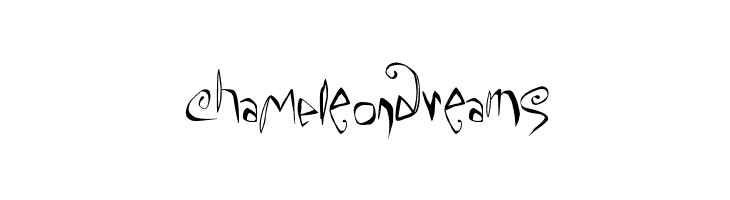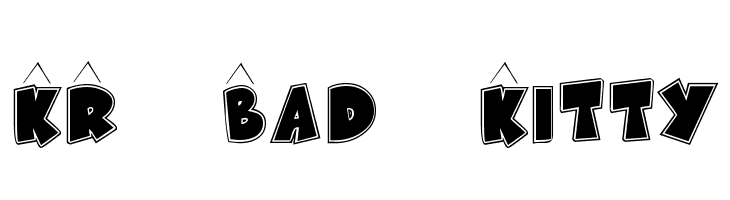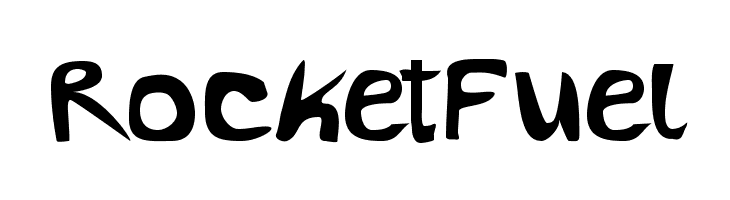
( Fonts by Punchcut )
A modern, light, and italic font with smooth strokes and balanced proportions.
( Fonts by www.kimberlygeswein.com - Kimberly Geswein )
A playful, hand-drawn sketch font with textured, shaded characters.
( Fonts by Hassina L )
A bold, playful handwritten font with thick, rounded strokes.
( Fonts by Emerald City Fontwerks - Steven J. Lundeen - www.speakeasy.org/~ecf/ )
A bold, decorative font with a vintage, playful style.
( www.porcelainpaperandpie.com )
A playful, hand-drawn font with irregular, wavy strokes and a whimsical style.
( Fonts by Rodrigo German - RASDESIGN )
A geometric, angular font with a futuristic and technical style.
A bold, distressed font with a grunge aesthetic and textured, irregular edges.